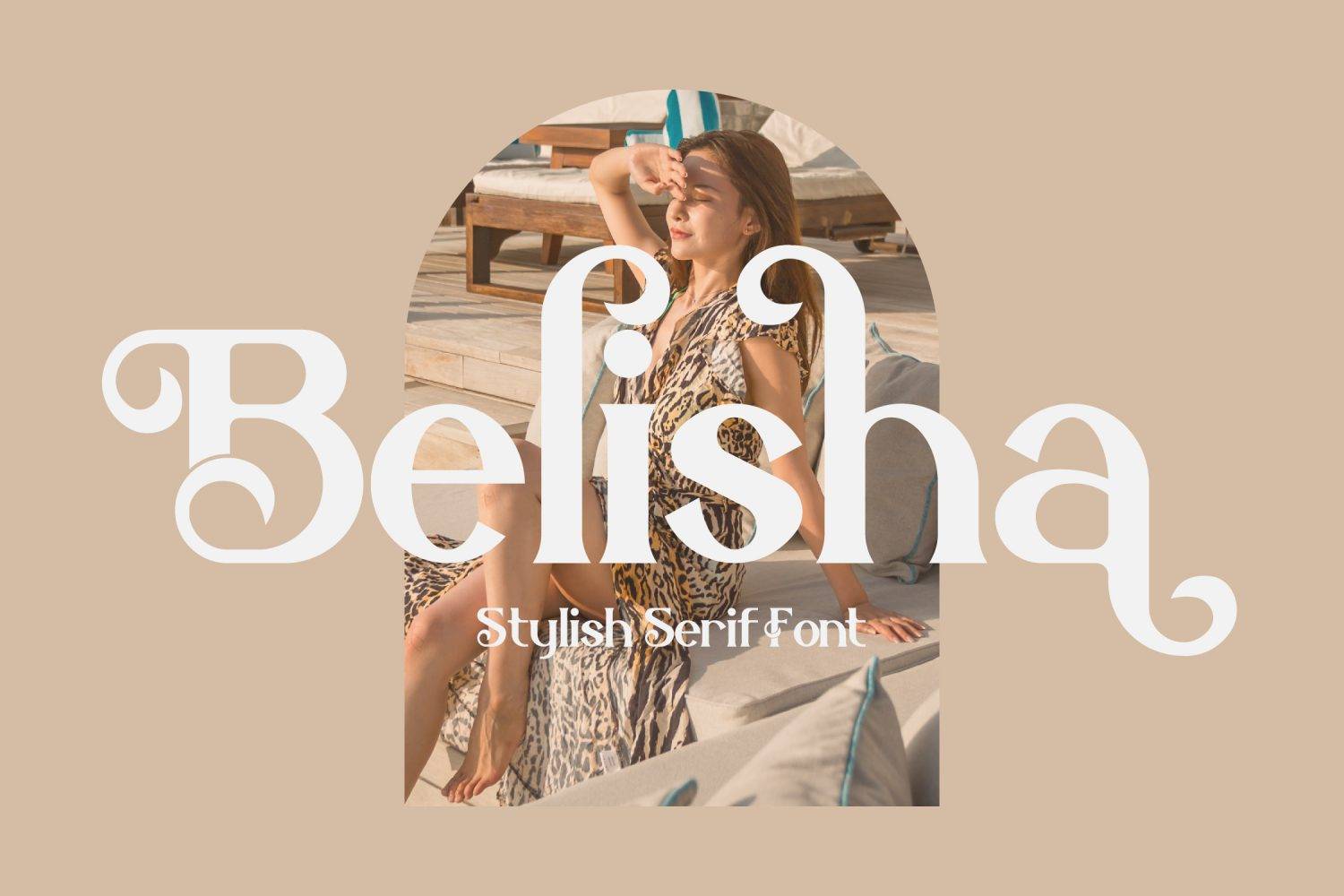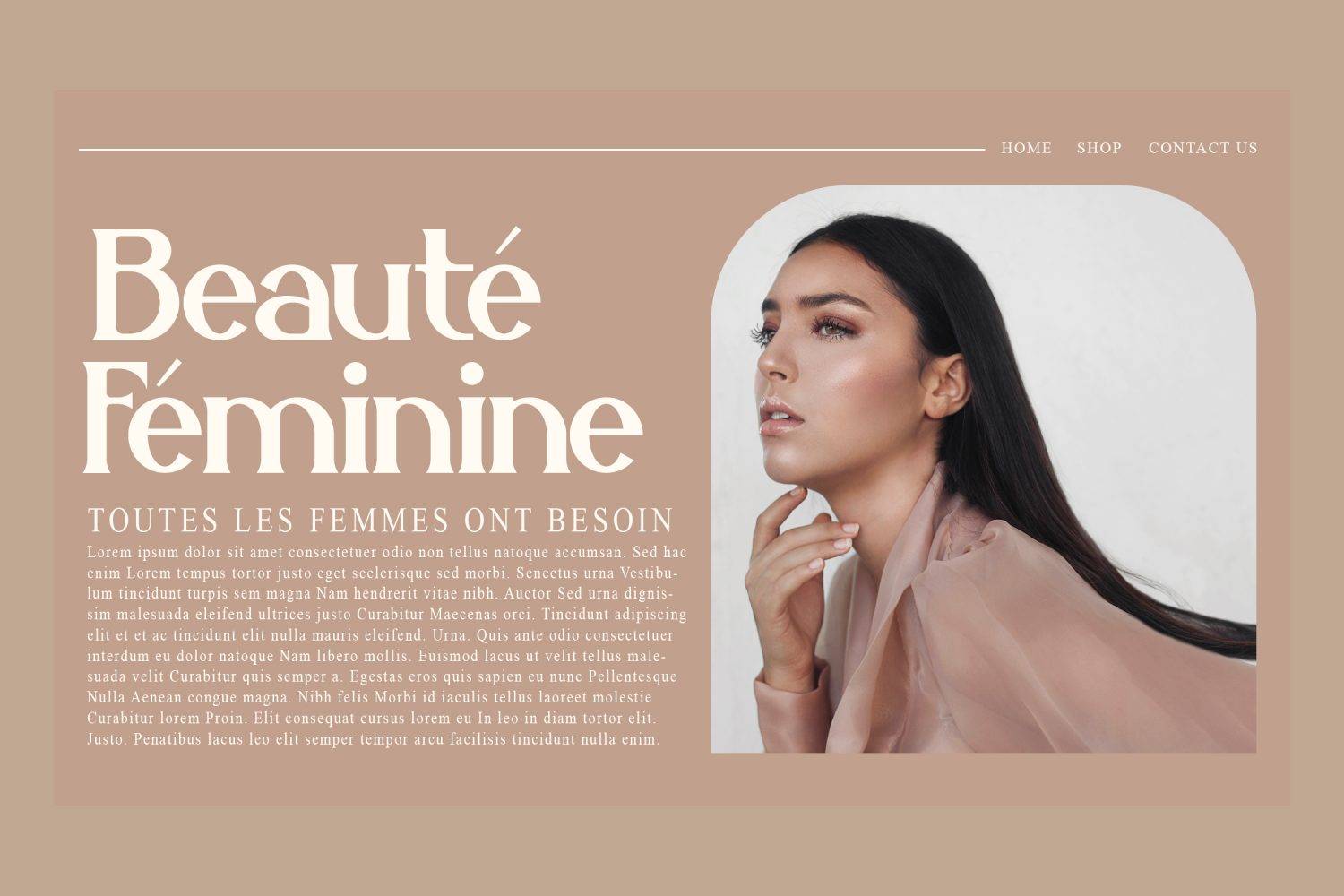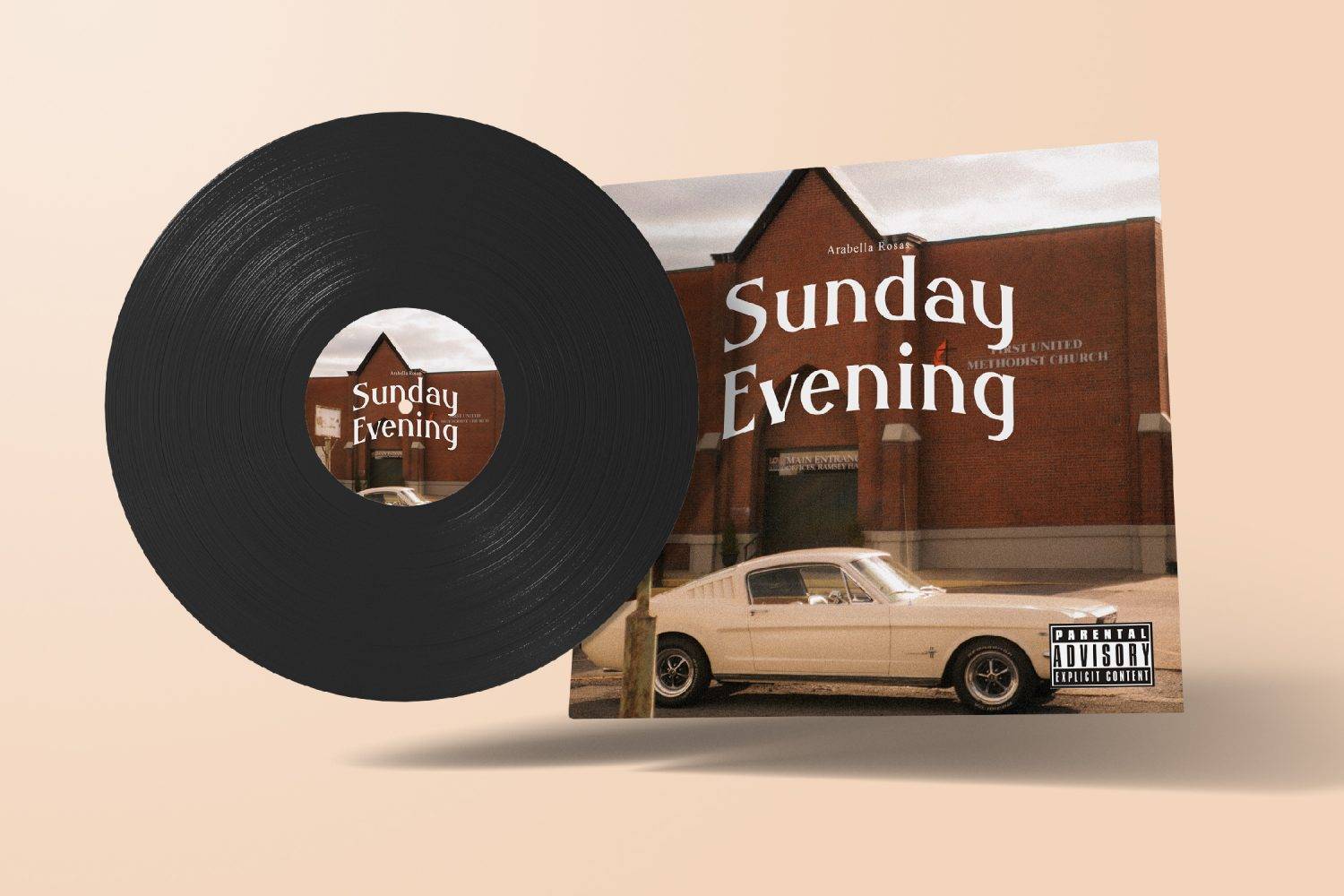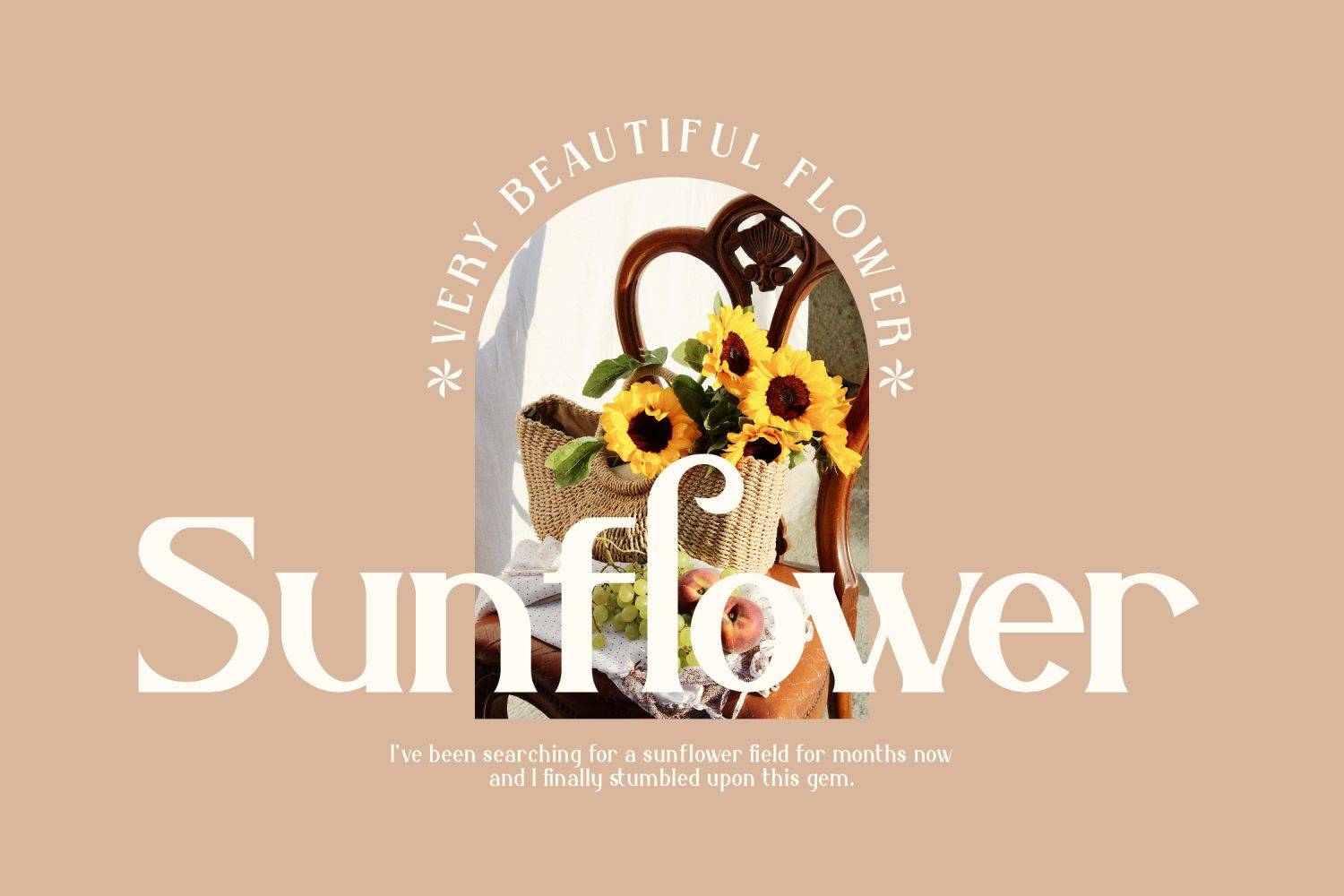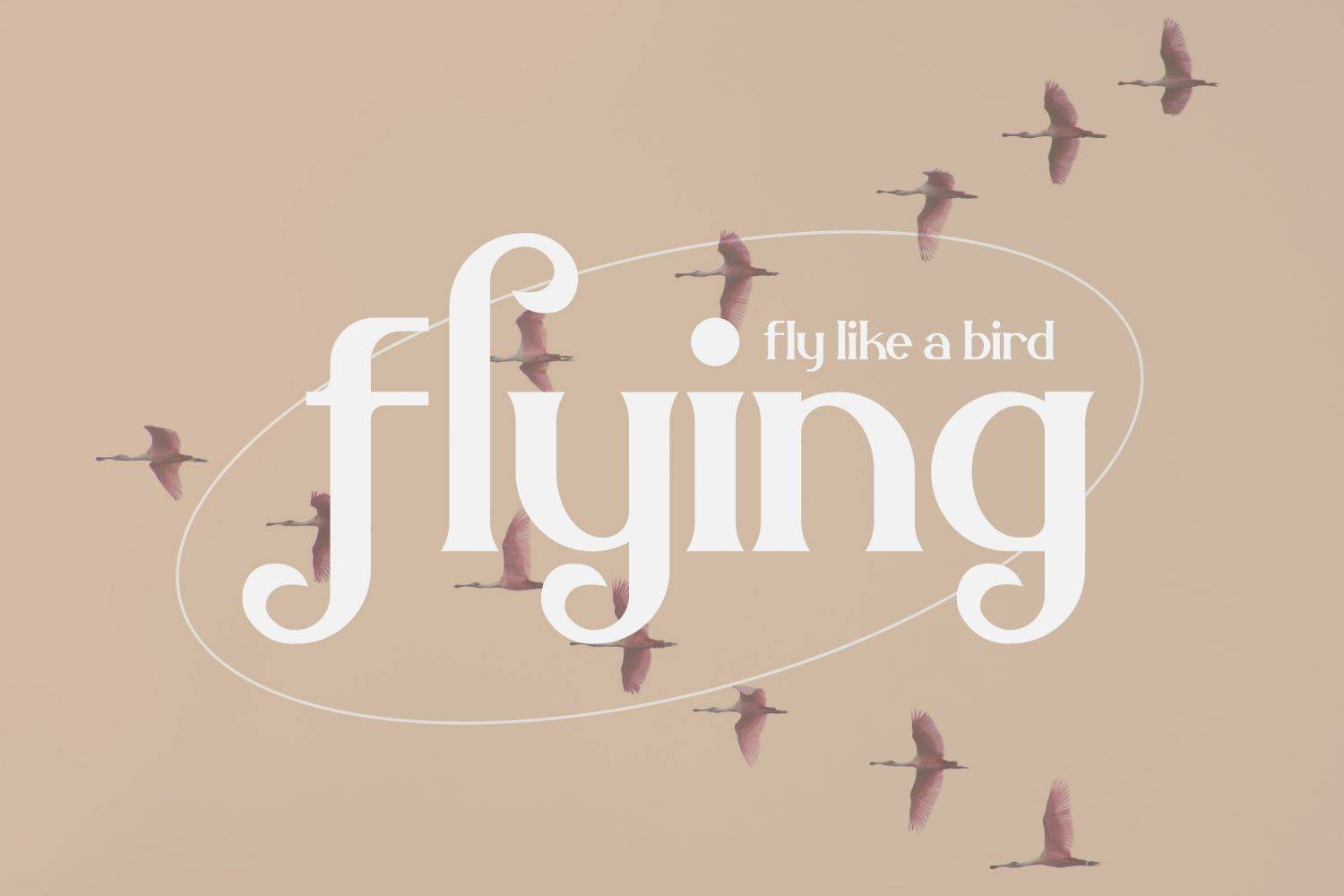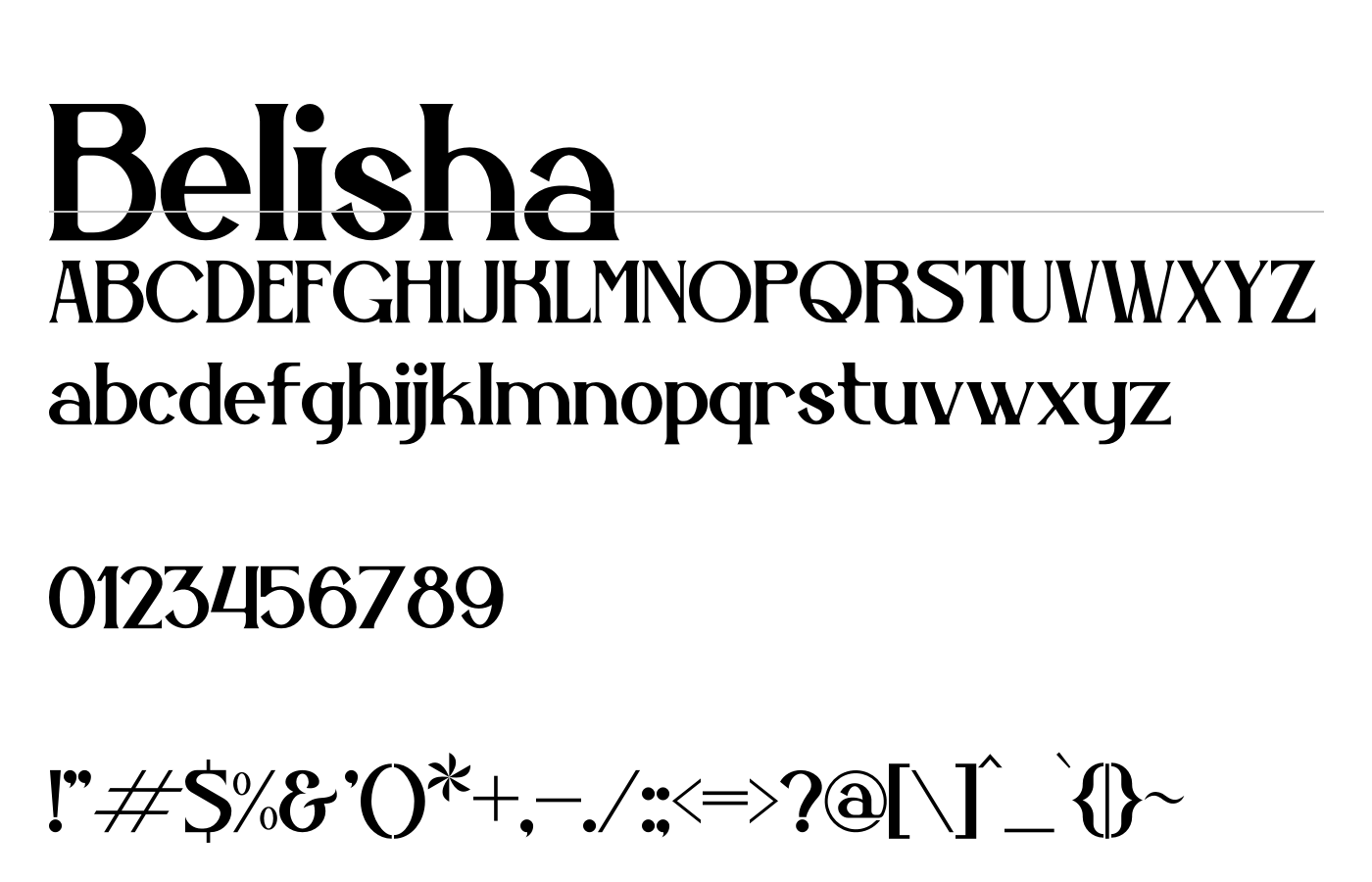
Belisha is an elegant serif font with a modern, Art Deco-inspired style characterized by high contrast between thick and thin strokes and sharp, distinct serifs. Its tall x-height and refined letterforms give it a sophisticated look, making it ideal for upscale branding, editorial headlines, and luxury packaging where a stylish and confident presence is desired.
Belisha Font
About Belisha Font